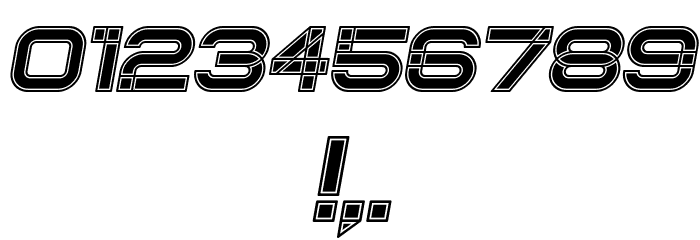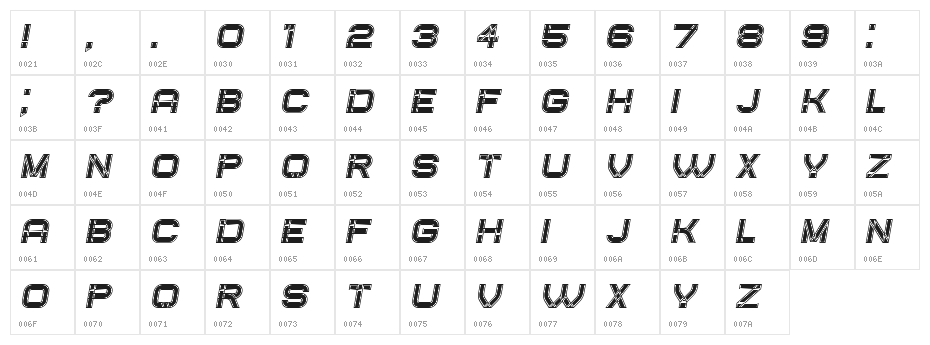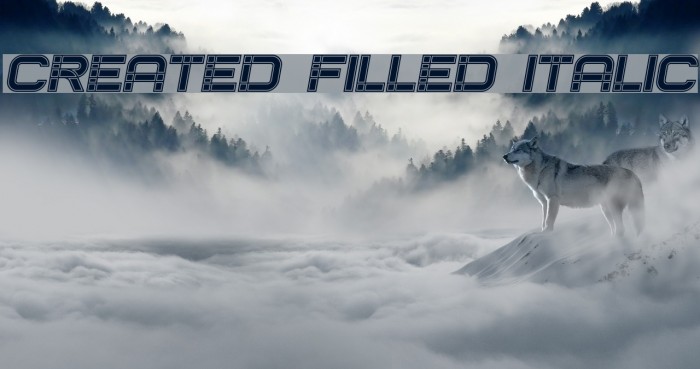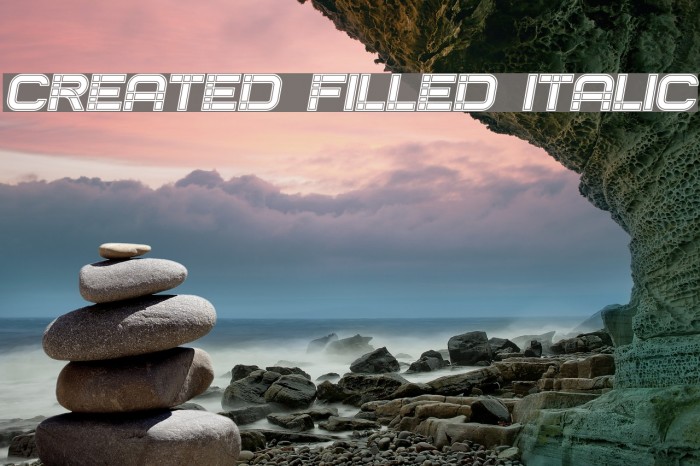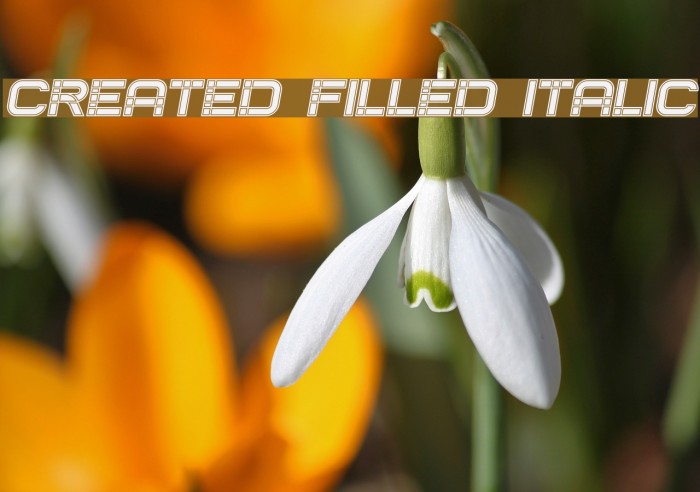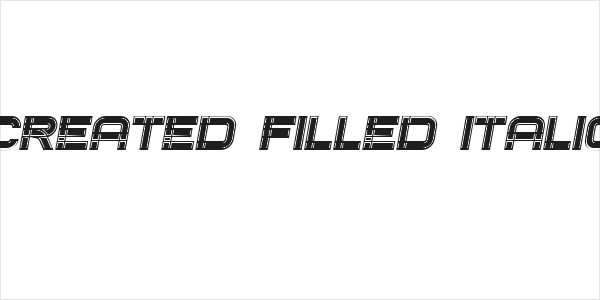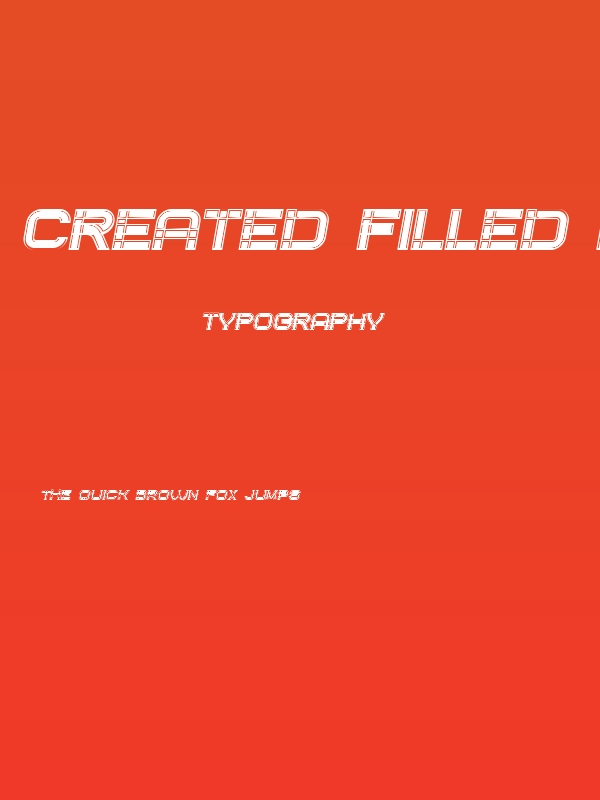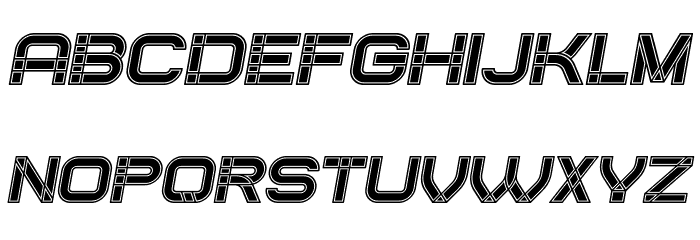
Created Filled Italic Font
Created Filled Italic Description
This font features a bold, futuristic design with a distinct italic slant. Each character is outlined with a double line, creating a filled effect that adds depth and dimension. The geometric shapes and angular lines give it a modern, tech-inspired look. The uppercase letters are uniform in height, while the numbers maintain a consistent style, ensuring readability. Special characters are included, maintaining the same bold and dynamic aesthetic. The font's unique style makes it suitable for projects that require a strong visual impact.
| Proposed Projects | Ideal for technology branding, sci-fi posters, video game titles, and modern advertising. |